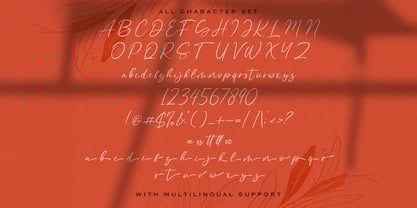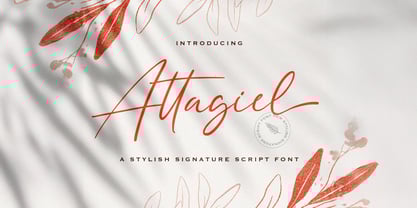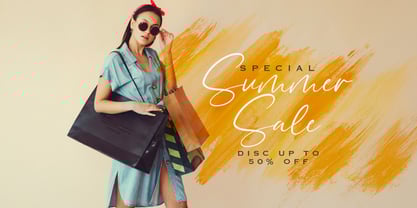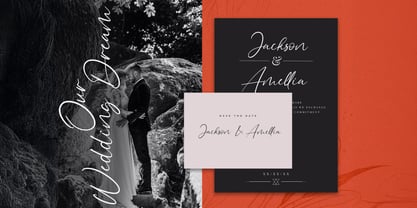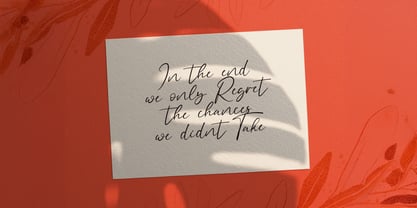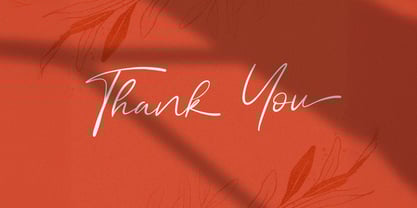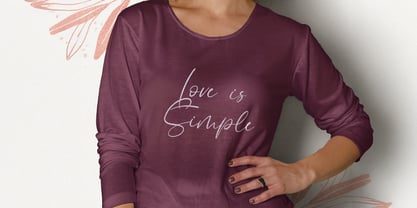
The Attagiel Font Family was designed by Virgiawan Listanto and published by Stringlabs Creative Studio. Attagiel contains 1 styles.
Attagiel is a fresh handwritten font that’s full of charm and character. With its casual strokes and smooth flow, Attagiel gives your designs a natural, personal feel like a note written just for you. Perfect for everything from branding and packaging to quotes and social media, Attagiel brings a modern handwritten vibe that’s both relaxed and refined.